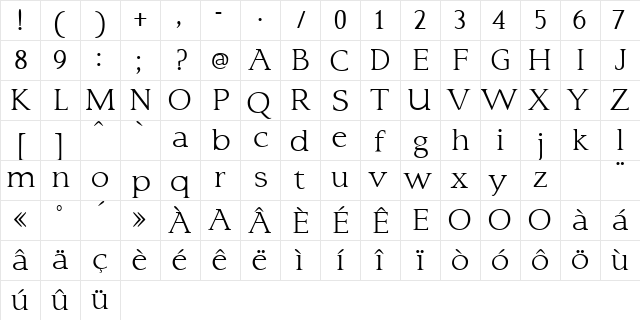
typo3 Normal
Design Context for typo3 Typeface
typo3 offers clean, dependable letterforms without strong stylistic allegiance, making it a practical choice for designers who need flexibility.
Pro Tip: Pair typo3 with a font of contrasting weight or personality to build a more expressive typographic hierarchy.